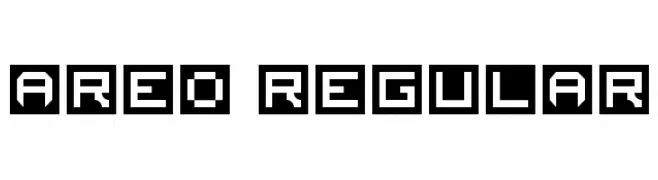
A bold, dynamic script font with high contrast and elegant flourishes.
A dynamic and elegant script font with fluid, connected strokes.
A dynamic cursive script with fluid, connected characters and bold uppercase letters.
A bold, brush script font with a dynamic, hand-painted style.
A bold, expressive script font with flowing, interconnected letters.
A dynamic, brush-style font with expressive strokes and an artistic flair.
A bold, dynamic script font with fluid, connected strokes.
A bold, elegant script font with flowing, cursive characters.
An elegant script font with flowing, cursive letters and a classic style.
A lively, expressive handwritten font with dynamic strokes and artistic flair.
A bold, textured font with diagonal lines for a modern, impactful look.
A modern, geometric sans-serif font with clean lines and uniform strokes.
A modern, clean sans-serif font with a slightly condensed style.
A refined, thin serif font with elegant and modern design elements.
A modern sans-serif font with clean lines and geometric shapes.
A sleek, modern font with thin, elongated characters and a minimalist design.
A bold, modern font with thick, uniform strokes for impactful design.
A bold, brush-style font with dynamic, hand-drawn strokes.
A bold, playful script font with a hand-drawn feel.
A playful, whimsical font with bold, hand-drawn characters.
A bold, classic serif font with high contrast and elegant details.
A high-contrast serif font with elegant, sharp serifs and a classic style.
( A personally designed font that uses chunky lettering to create a fun and cool style that calls back to the wild and irreverent 90s style. )
A playful, bold font with irregular, dynamic letterforms.
A futuristic, geometric font with uniform stroke thickness and angular letterforms.
A chaotic, vine-like decorative font with intense detailing.
A bold, graffiti-style font with sharp, angular lines and dynamic flow.
A geometric, futuristic font with square and angular letterforms.
A playful and artistic font with unique, irregular letterforms.
A playful, oblique handwritten font with smooth, flowing lines.